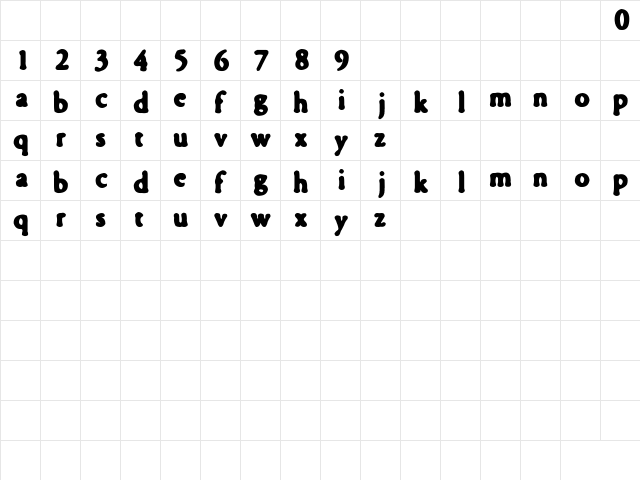
fontility Regular
Design Context for fontility Typeface
fontility offers clean, dependable letterforms without strong stylistic allegiance, making it a practical choice for designers who need flexibility.
Pro Tip: Pair fontility with a font of contrasting weight or personality to build a more expressive typographic hierarchy.